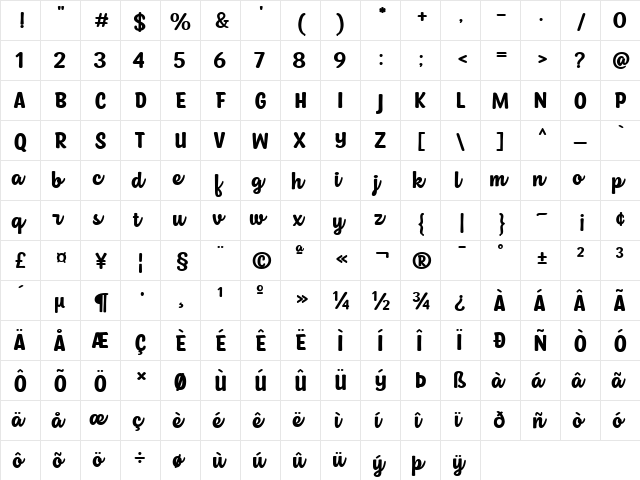
Owl Cute Regular
| Designer | Ali Hamidi |
Design Context for Owl Cute Typeface
Owl Cute is a composed and adaptable typeface that performs quietly and consistently across a wide range of design contexts.